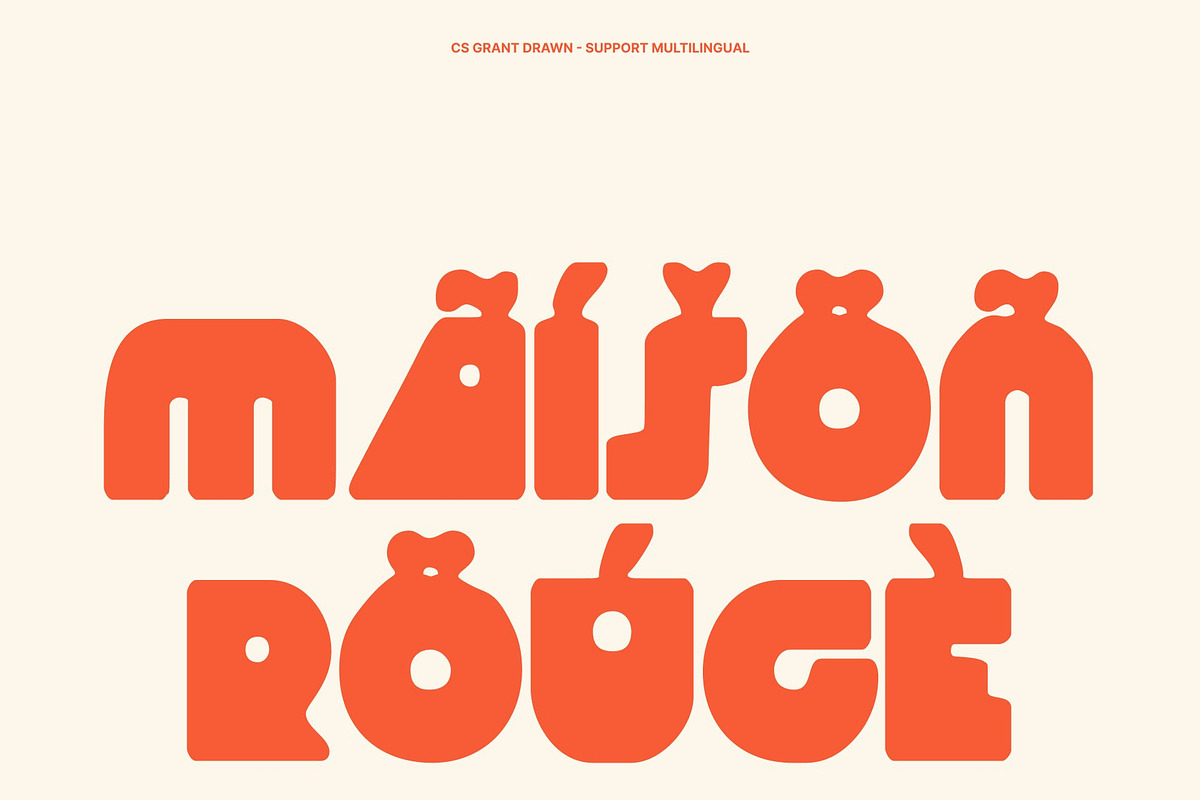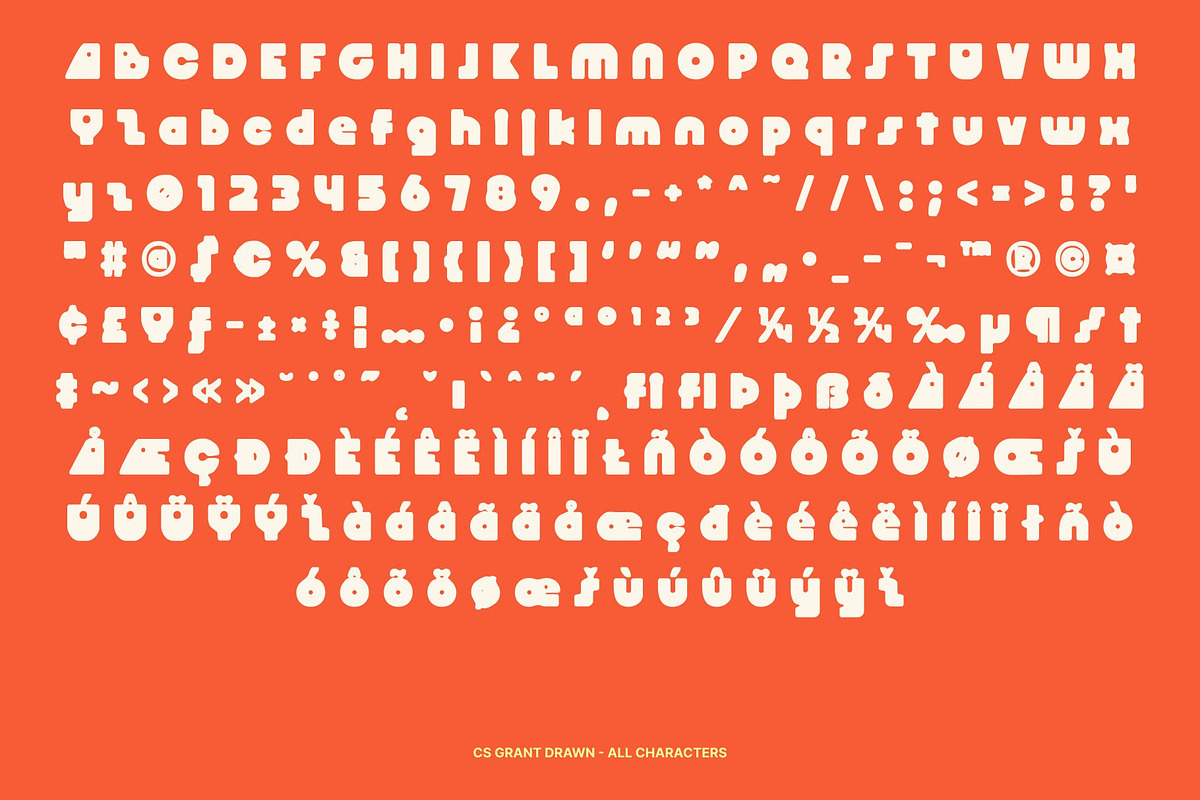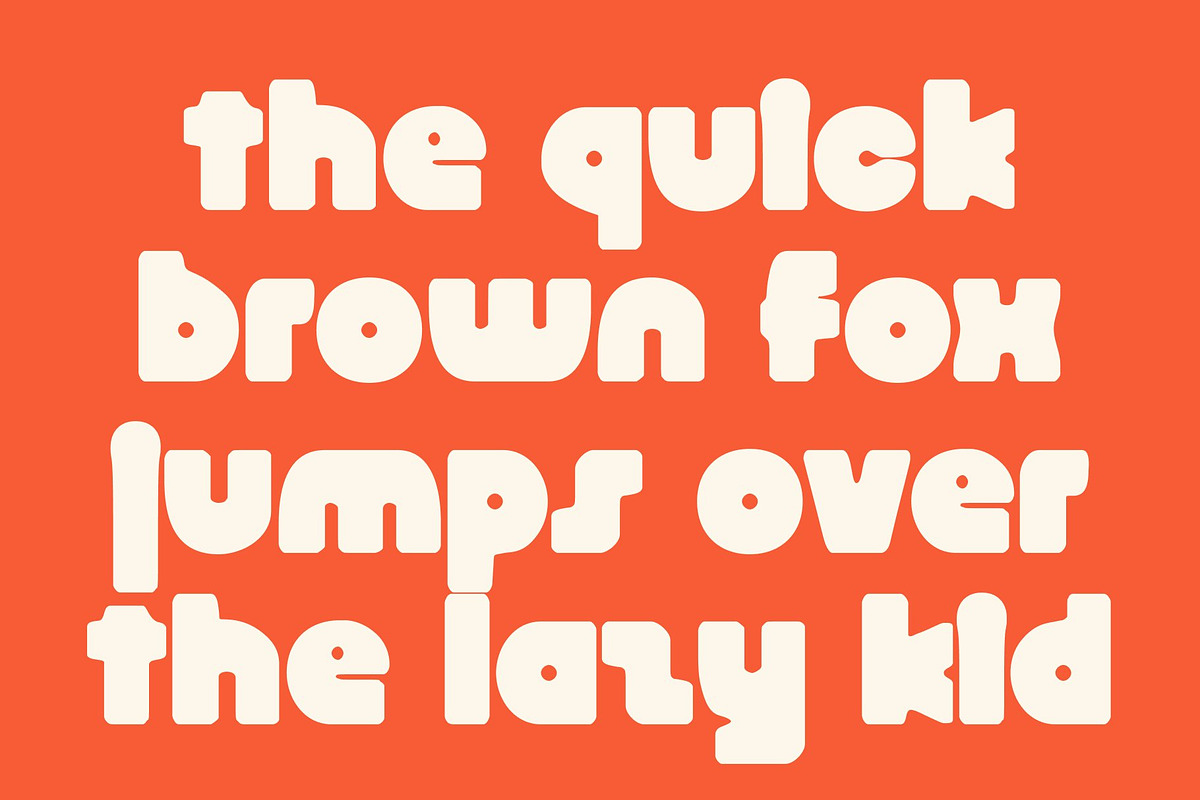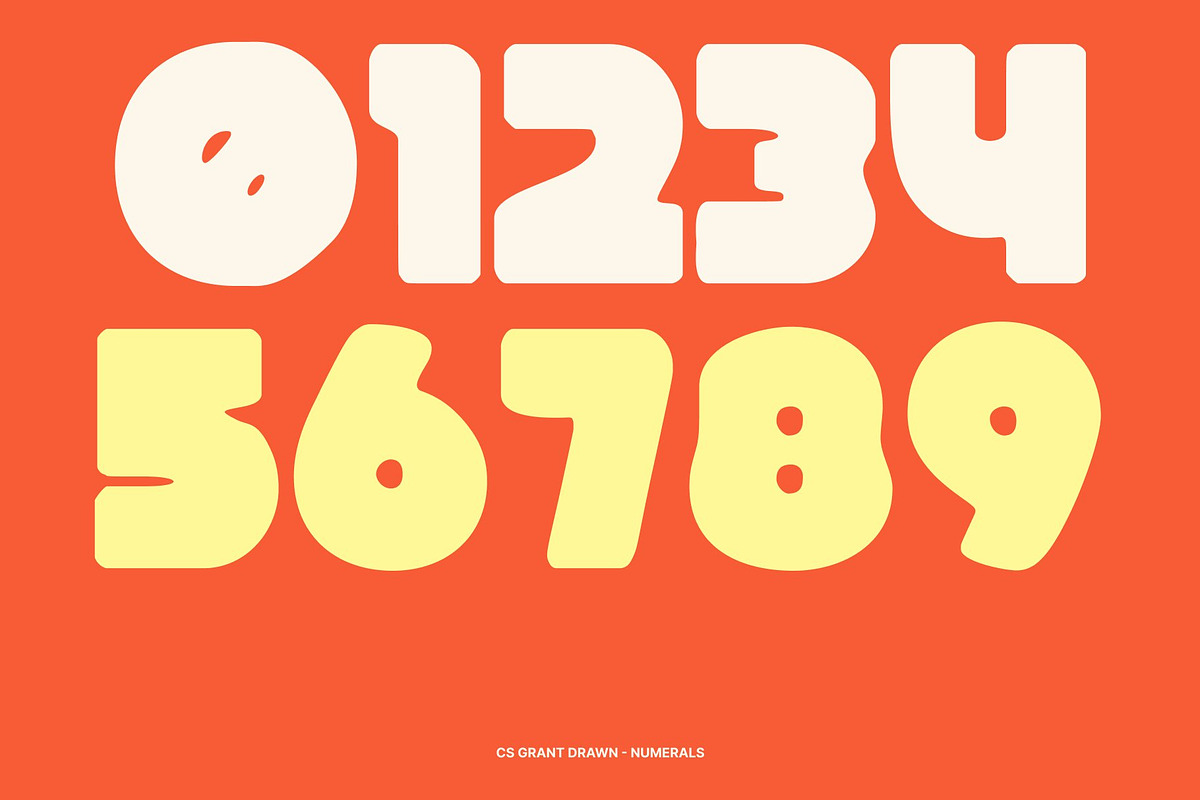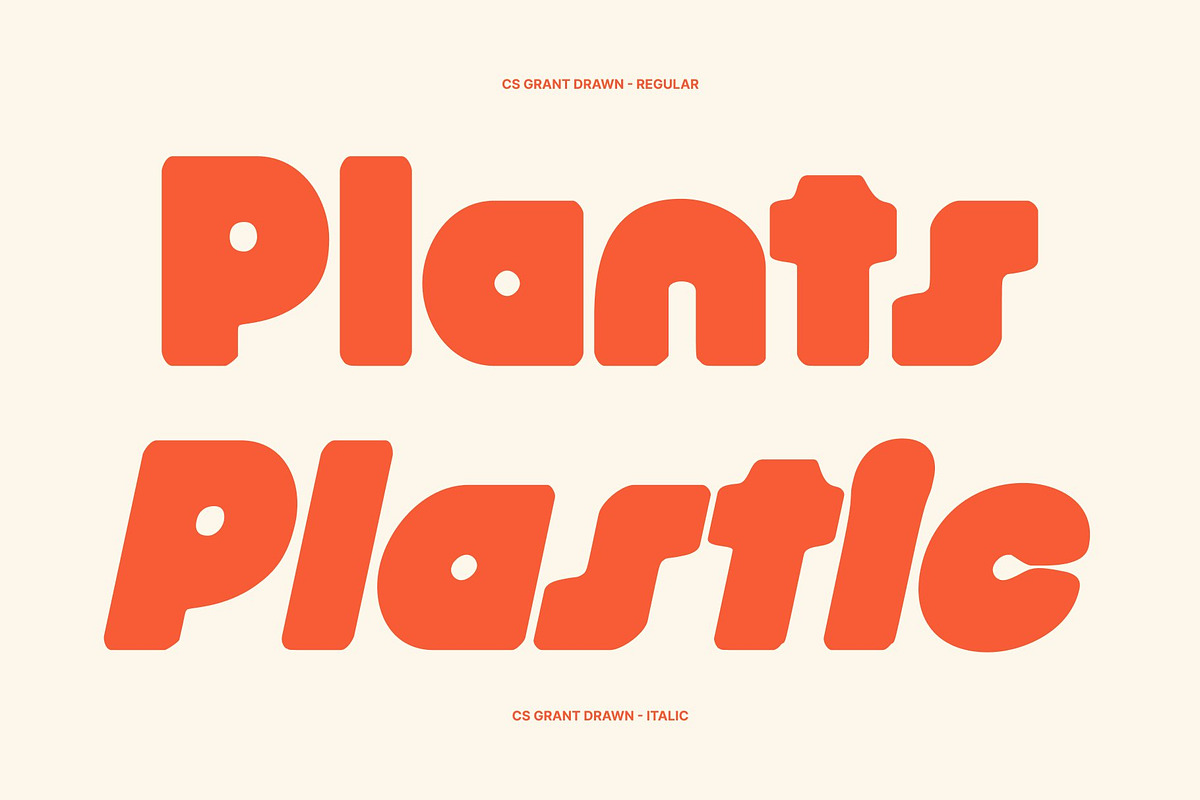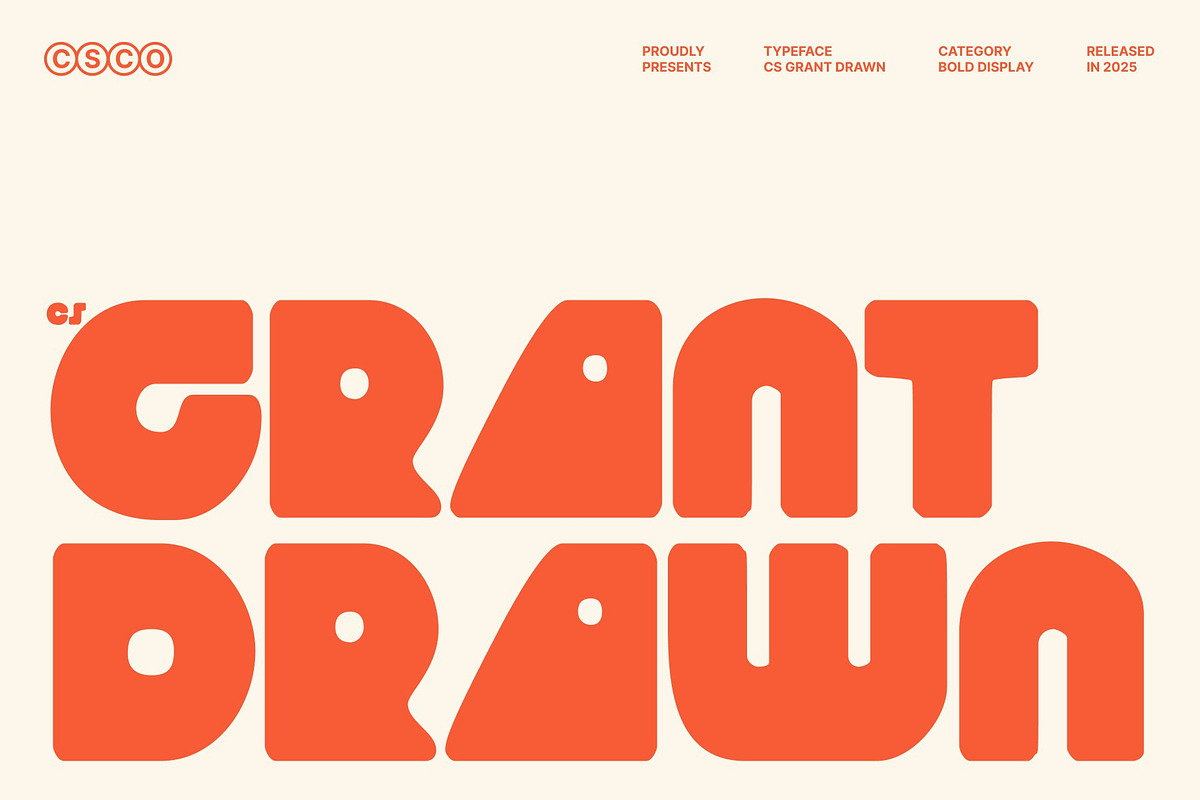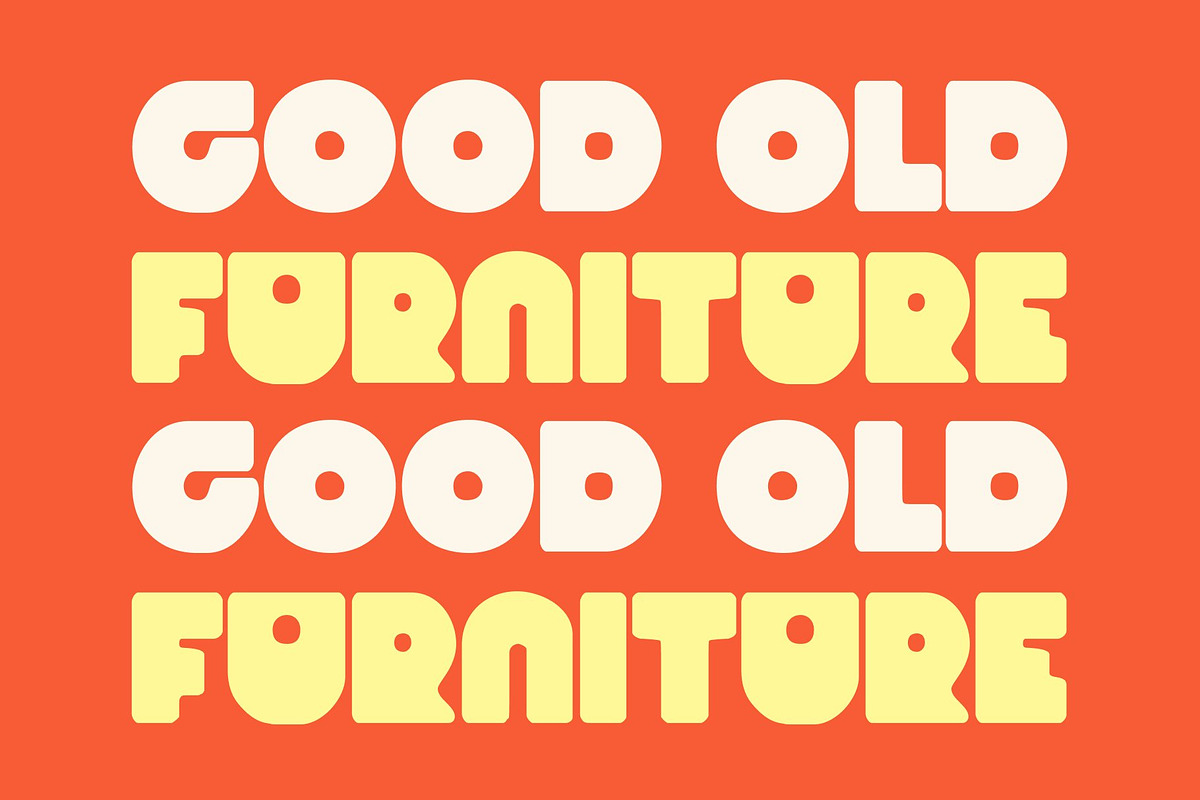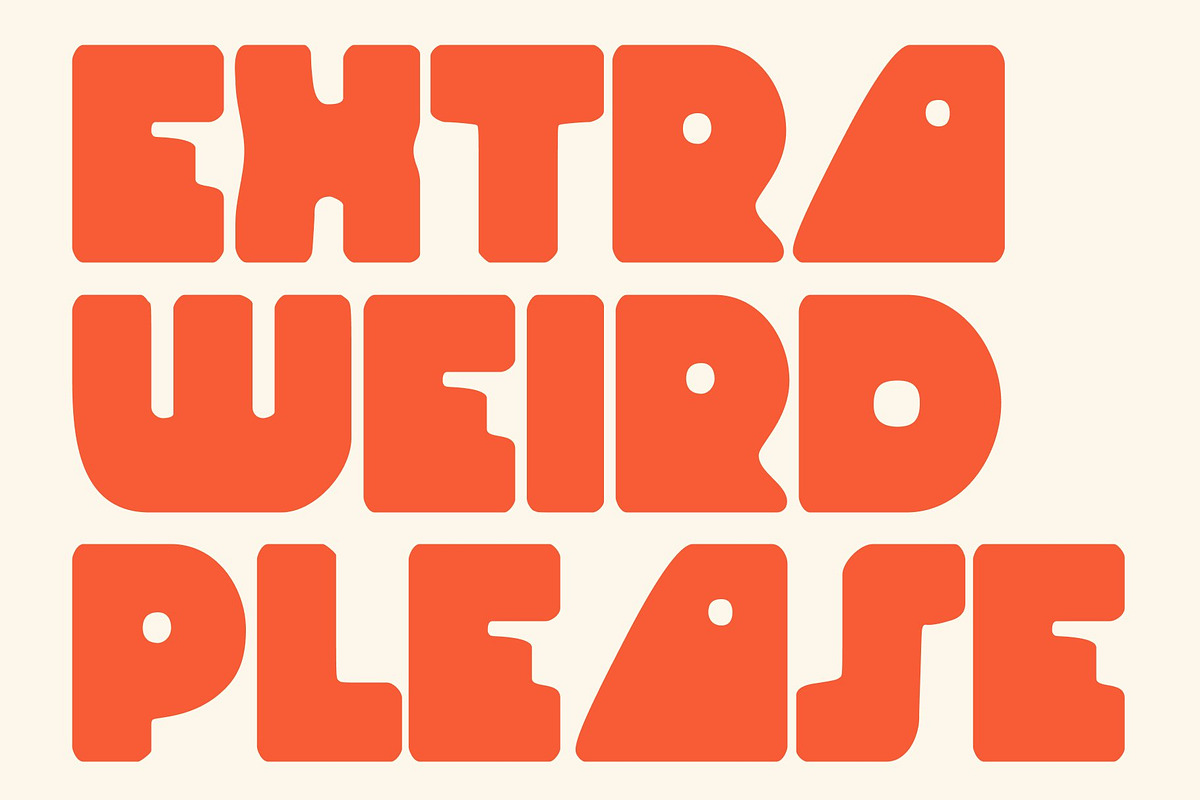
CS Grant Drawn
CS Grant Drawn – Modern Display Typeface with Experimental Geometry
Modern Structure with Bold, Handcrafted Expression This is a modern display typeface built from strong geometric foundations and bold construction, enhanced with a distinctive drawn texture. Its confident structure delivers instant visual impact, while the hand-drawn details add personality and warmth. This combination creates a typeface that feels contemporary, expressive, and full of character perfect for designs that want to look fresh yet authentic.
Geometric Forms with Unique Personality What sets this font apart is its experimental approach to geometry. Bold shapes, unconventional proportions, and subtle irregularities give each character a creative edge. The drawn effect softens the rigid geometry, resulting in a font that feels lively and original. Despite its experimental nature, the letterforms remain well-balanced and readable, making the font both artistic and practical.
Fresh, Modern, and Visually Striking This font delivers a modern aesthetic with a playful, energetic attitude. Its strong presence makes it ideal for designs that aim to stand out and push creative boundaries. The mix of clean geometry and organic texture brings depth and visual interest, adding confidence and style to any composition.
Perfect for Magazines and Creative Titles Designed for display use, this font excels in magazines, posters, branding, and design titles. Whether used as a headline or a focal typographic element, it adds originality, modern appeal, and a bold handmade character to projects that demand attention and creativity.
- CS Grant Drawn Regular
- CS Grant Drawn Italic